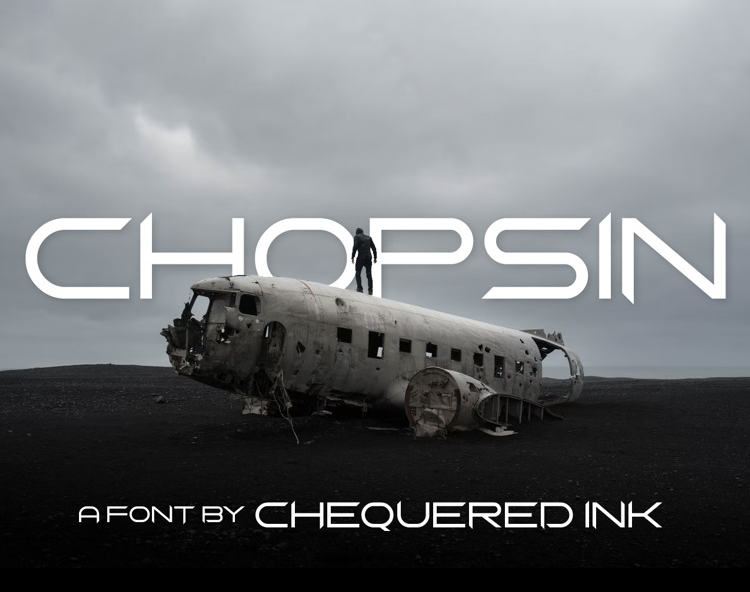
Chopsin Font
Chopsin Display Font
This font creates modern futuristic hi-tech atmosphere and style. It is good looking as header and as text both. Use it in your projects in such areas as robots&androids, hi-tech, future, virtual reality, space, sport and many others.